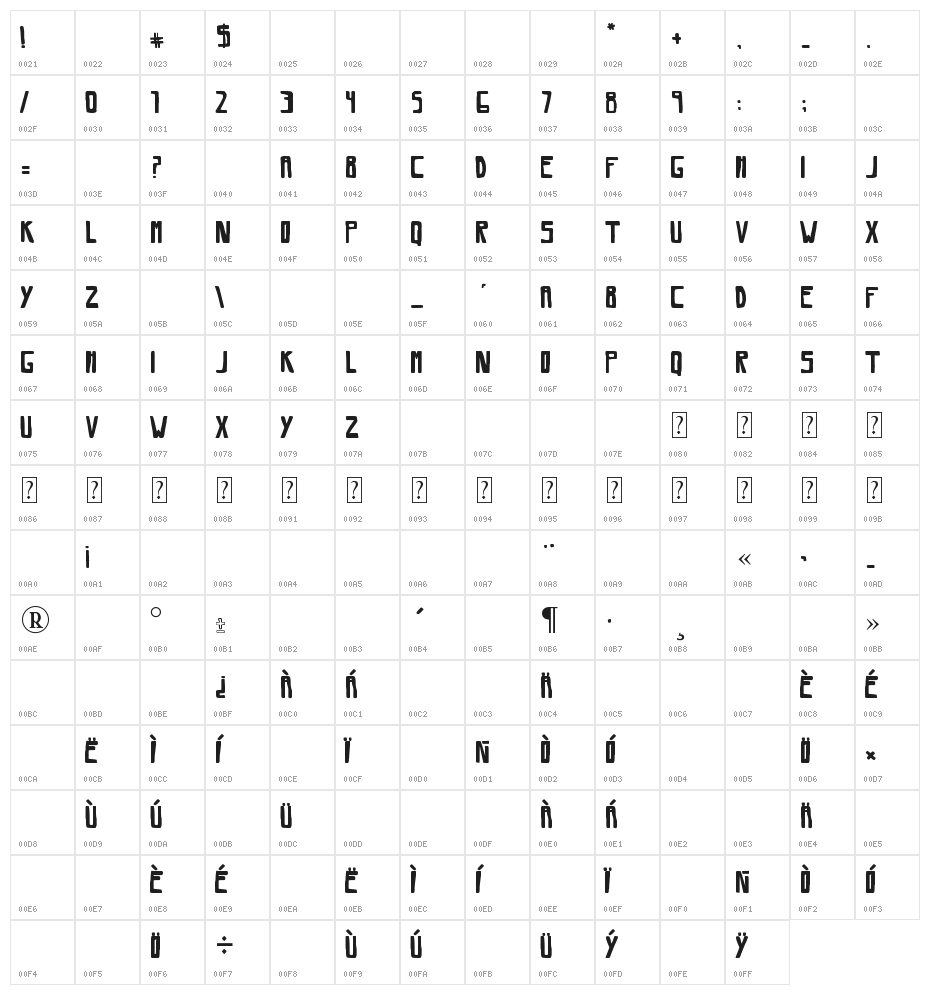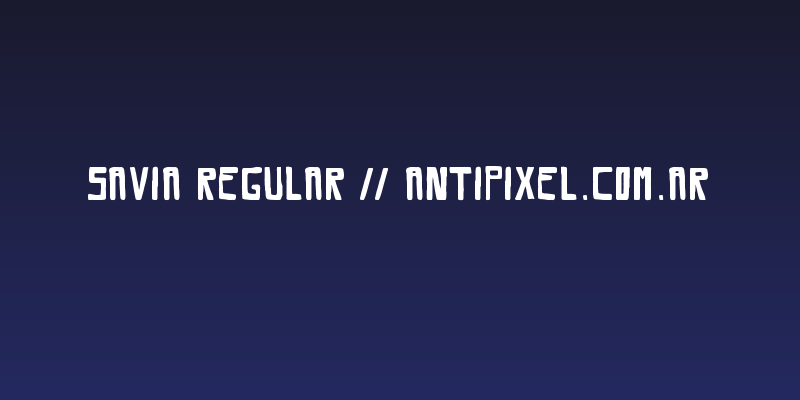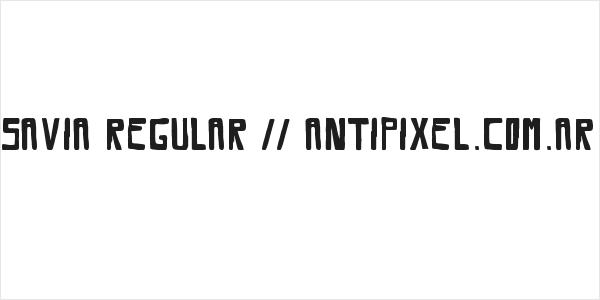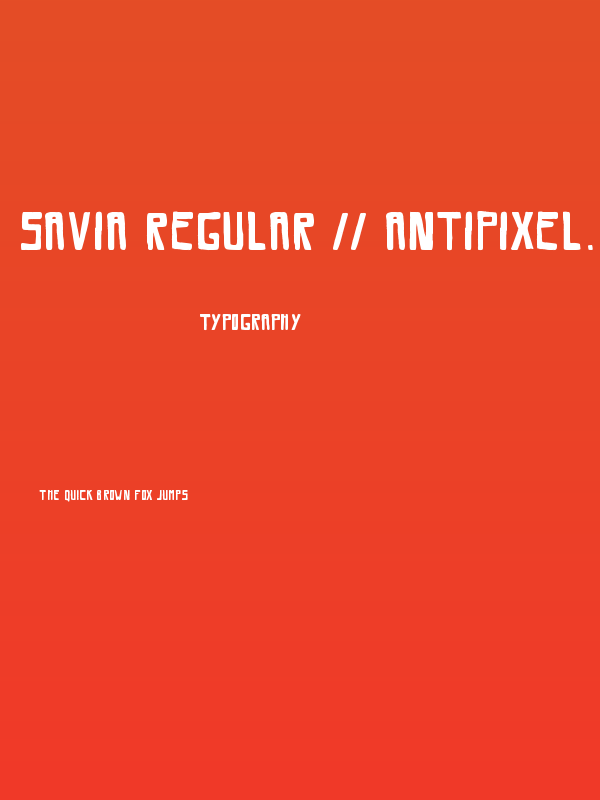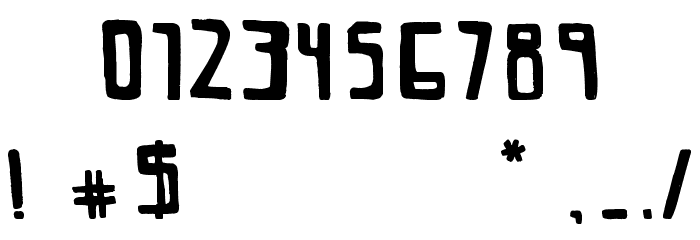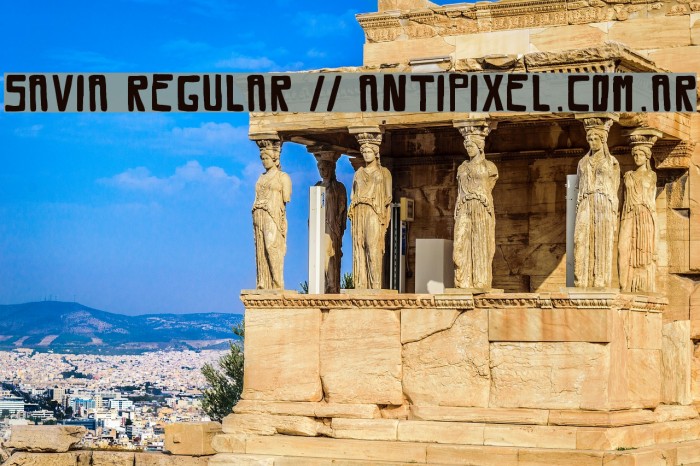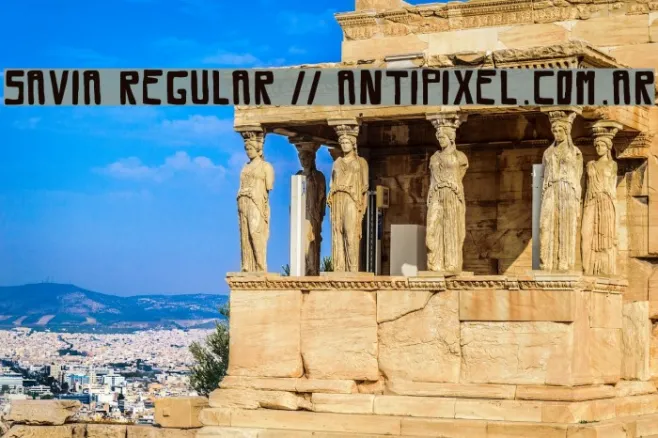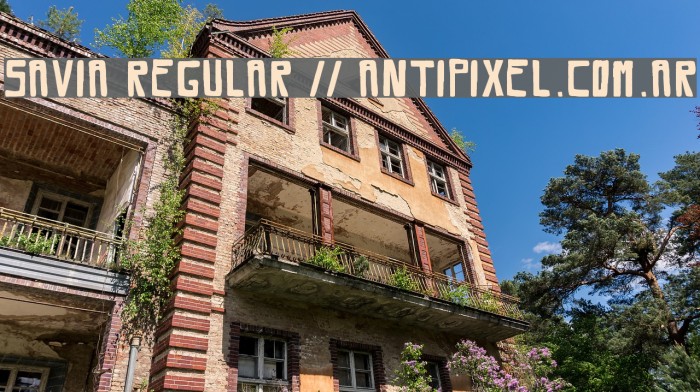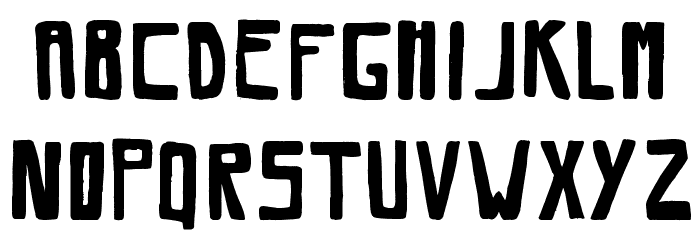
Savia Regular // ANTIPIXEL.COM.AR Font
Savia Regular // ANTIPIXEL.COM.AR Description
This font exhibits a bold and rugged style with a hand-drawn appearance, characterized by uneven edges and a slightly distressed look. The uppercase and lowercase letters maintain a consistent height, giving it a uniform appearance despite its organic feel. The numbers and special characters follow the same design ethos, ensuring a cohesive look across all glyphs. The strokes are thick and have a medium contrast, adding to the boldness and visibility of the text. This font's unique style makes it stand out, providing a sense of individuality and creativity.